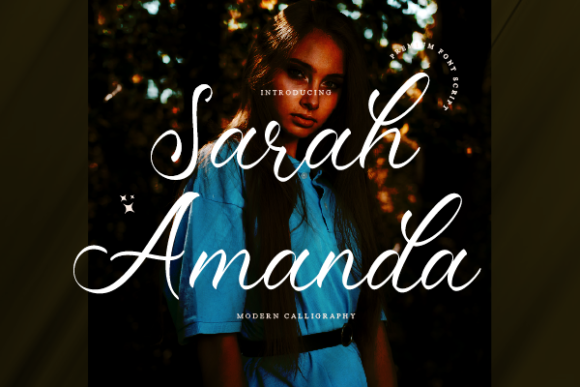
Introducing Sarah Amanda - the enchanting script font that will captivate your designs!
Unleash the power of creativity with Sarah Amanda, an exquisite script font crafted with meticulous precision to bring a touch of sophistication and elegance to all your projects. Whether you're embarking on logo designing, branding projects, or simply seeking to add a captivating charm to your photographs, Sarah Amanda is the perfect choice to elevate your creations.
Step into a world of endless possibilities, where the graceful curves and delicate strokes of Sarah Amanda intertwine to create a symphony of beauty. Its versatility knows no bounds, allowing you to effortlessly transform ordinary designs into extraordinary masterpieces. Let your imagination soar as you explore the myriad ways in which Sarah Amanda can enhance your projects, adding a touch of understated luxury and timeless appeal.
For those seeking a font that exudes a touch of whimsy and playfulness, Sarah Amanda is your perfect companion. It perfectly complements wedding invitations, greeting cards, and social media graphics, infusing them with a heartwarming and personal touch that will leave a lasting impression.
But Sarah Amanda's allure doesn't end there. It's also an exceptional choice for branding projects, where its ability to convey both professionalism and creativity is unmatched. Create logos that demand attention, business cards that leave a lasting impression, and marketing materials that inspire and engage.
With Sarah Amanda at your fingertips, you'll embark on a creative journey that knows no limits. Its timeless beauty and versatility will elevate your designs to new heights, captivating your audience and leaving an unforgettable mark on their hearts. Embrace the enchanting world of Sarah Amanda today and unlock the full potential of your creative vision!